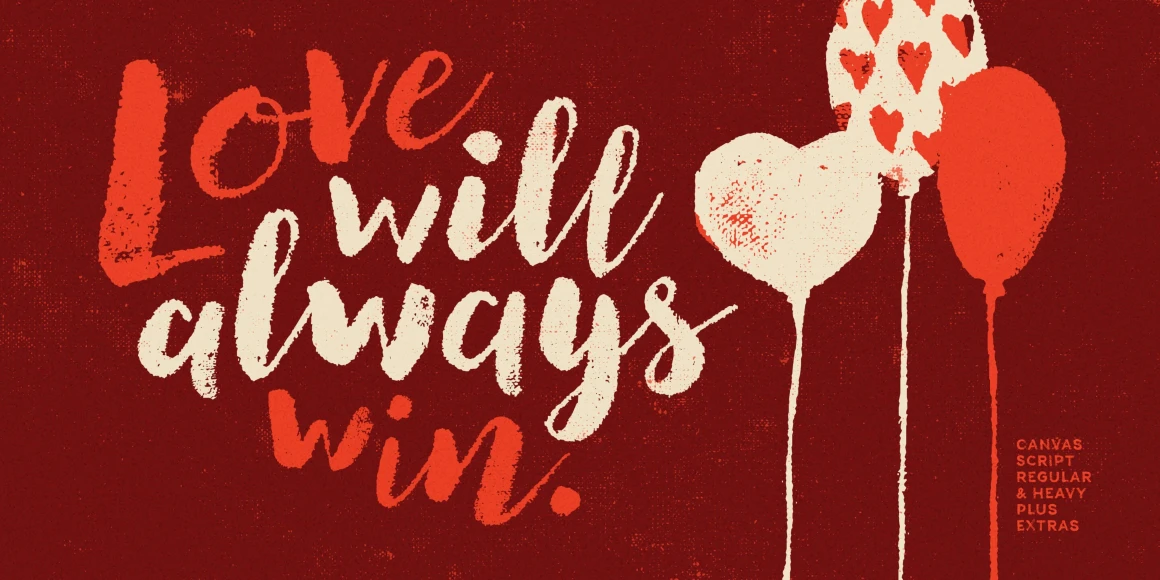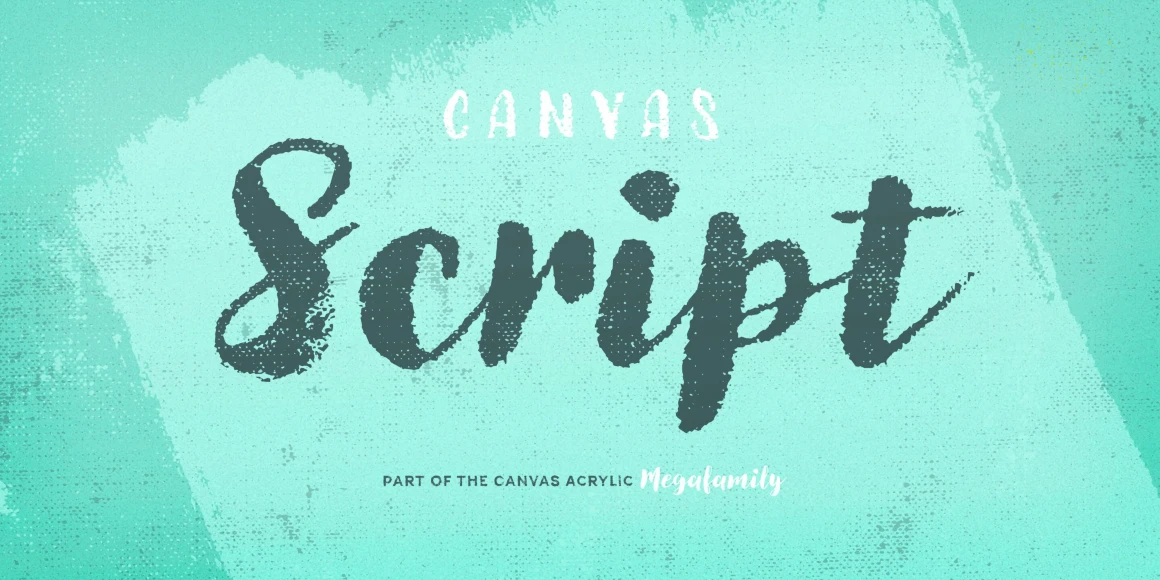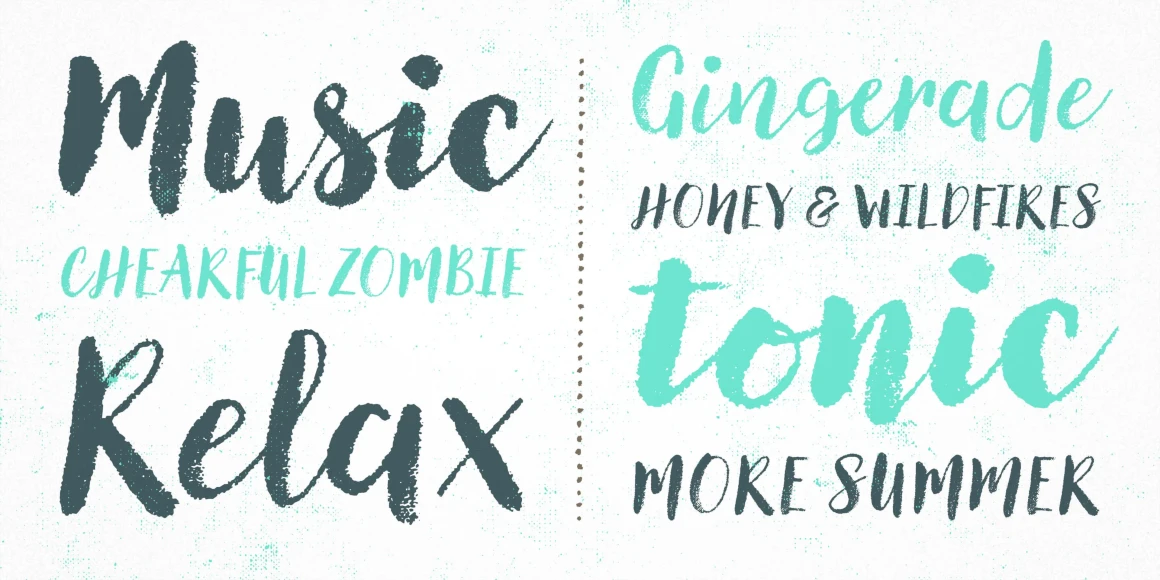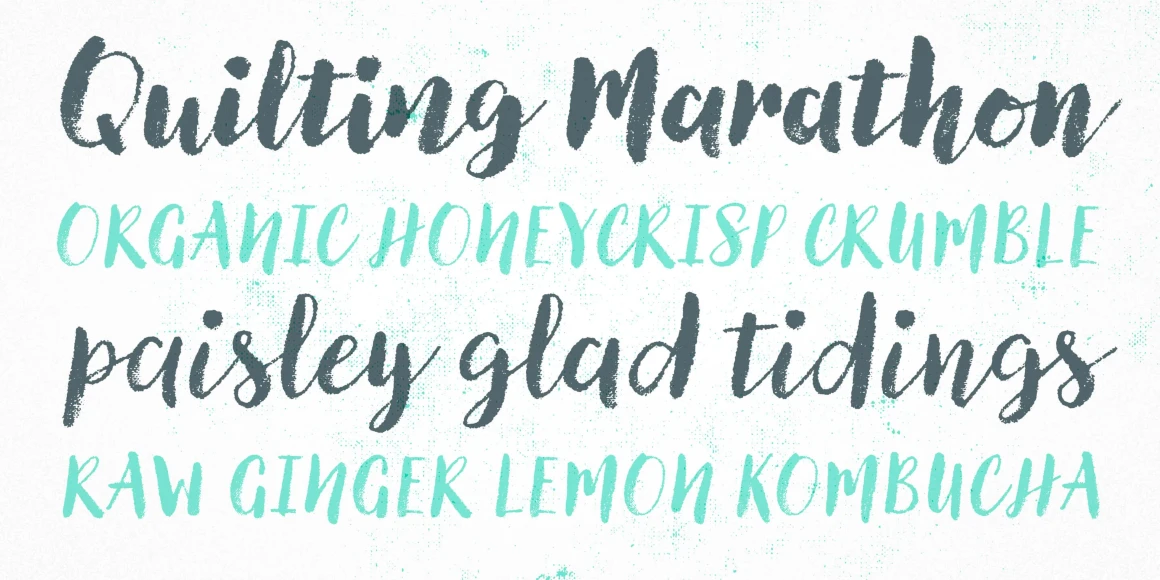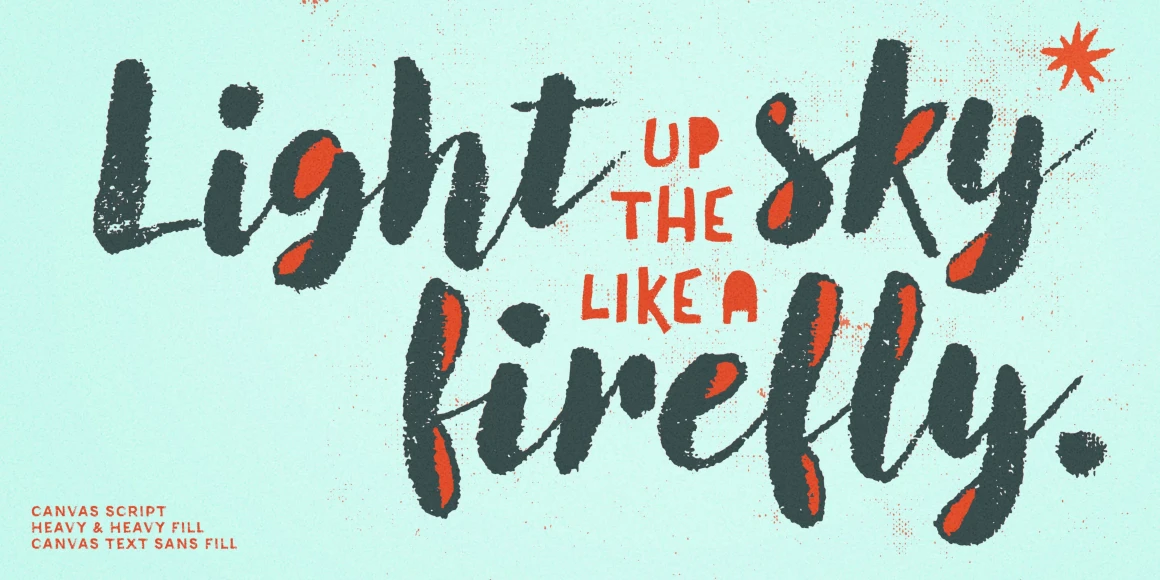
Canvas Script
By Ryan Martinson & Rhea Martinson
Canvas Script Regular
Canvas Script Regular Accent
Canvas Script Heavy
Canvas Script Regular Fill
Canvas Script Heavy Accent A
Canvas Script Heavy Accent B
Canvas Script Heavy Fill
Canvas Script is part of the Canvas Acrylic Megafamily. It’s a festive set of acrylic brush fonts with regular, heavy, and layered versions. It features authentic, hi-res texture that retains its realism even at very large sizes. Canvas Script has double-letter ligatures that automatically fix adjacent duplicate letters. A bonus set of complimentary vector background textures, shapes and elements is available from the site.